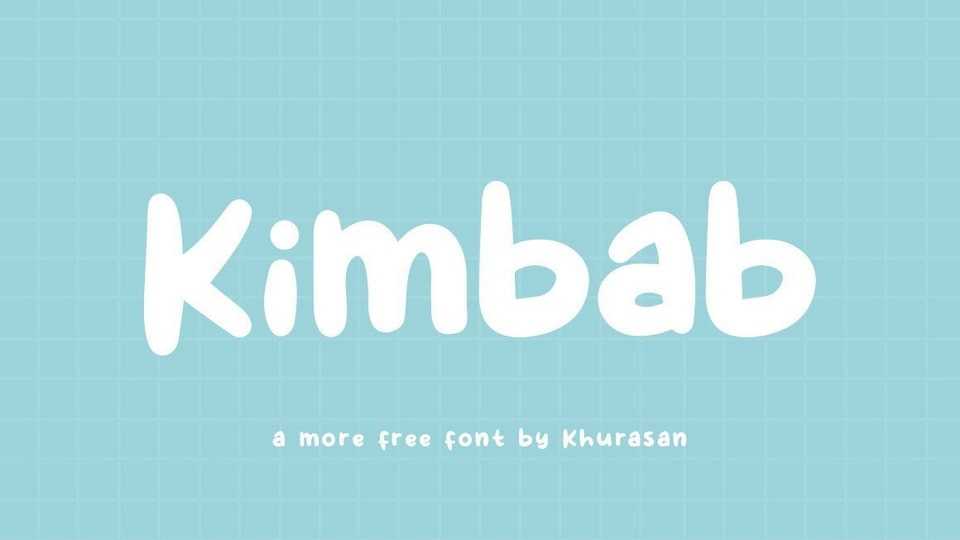
Download Kimbab font, a cute and friendly handwritten typeface. Kimbab font is perfect for posters, logos, magazines, book covers, banners, and many more.